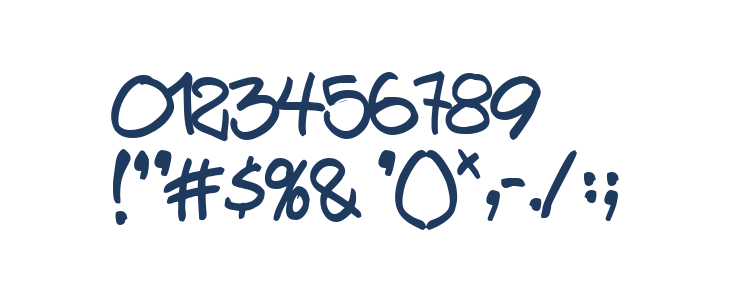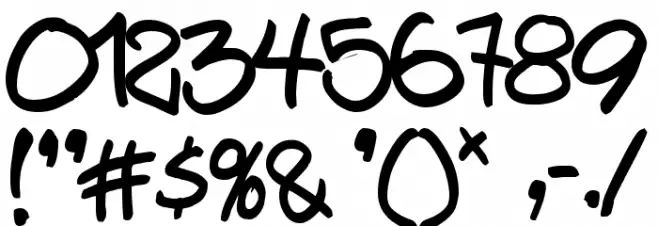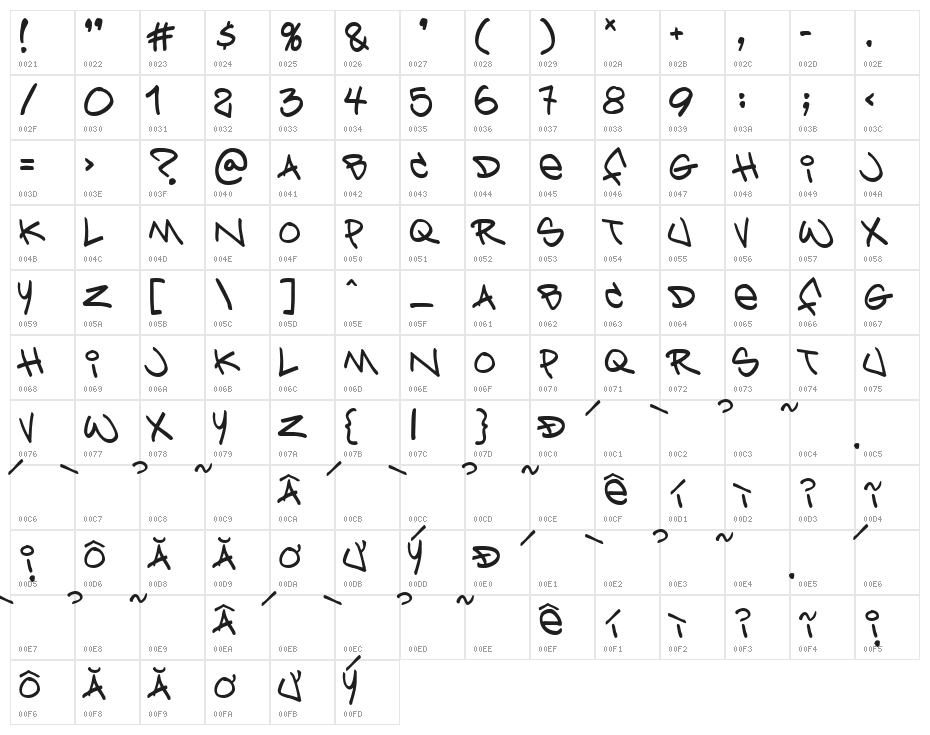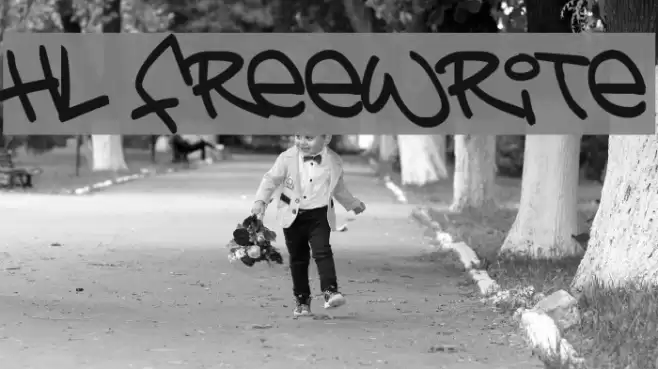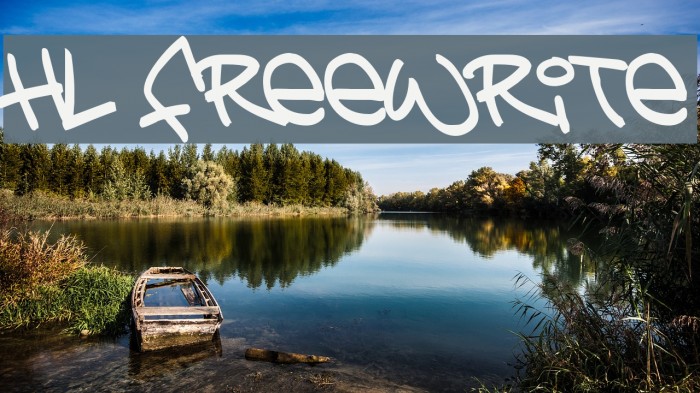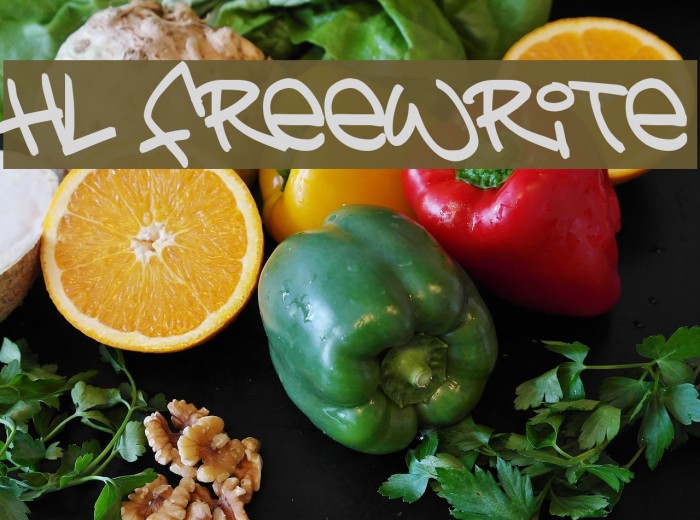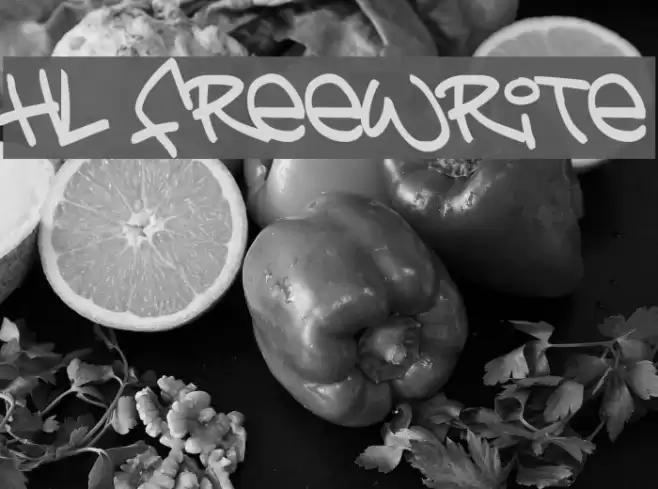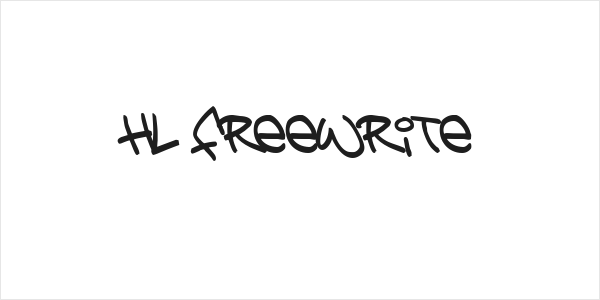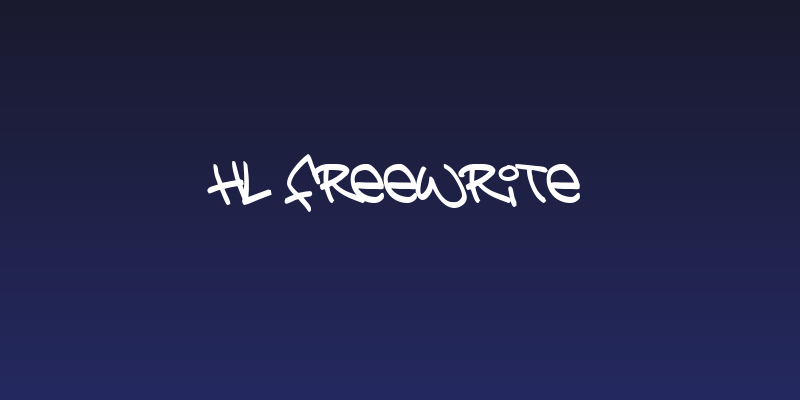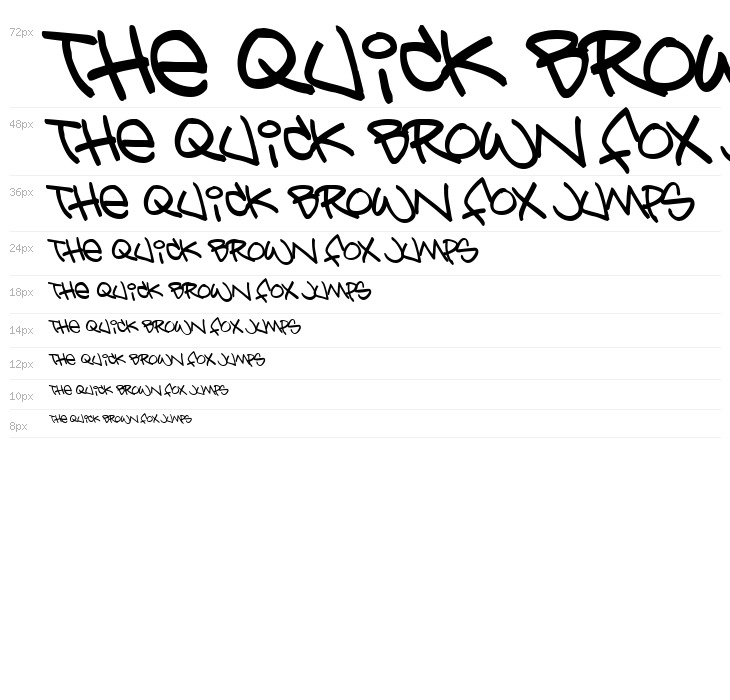
HL Freewrite Font
HL Freewrite Description
This font exudes a dynamic and energetic vibe, characterized by its bold and expressive handwritten style. The letters are crafted with a playful, graffiti-like flair, featuring exaggerated curves and angles that give it a sense of movement and spontaneity. The uppercase and lowercase letters maintain a consistent style, with a slightly irregular baseline that enhances its casual and informal appearance. The numbers and special characters follow the same aesthetic, ensuring a cohesive look across all elements. This font is perfect for projects that require a touch of creativity and individuality.
| Proposed Projects | Ideal for street art designs, urban-themed posters, creative branding, and edgy social media graphics. |